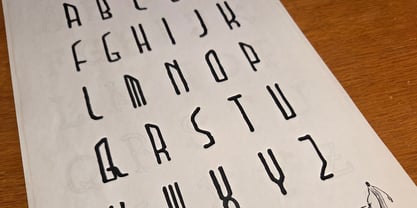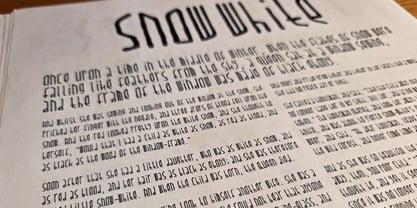
Paradox
von Dawnland
Die Schriftfamilie Paradox wurde von Daniel Viberg entworfen und von Dawnland veröffentlicht. Paradox enthält 1 Stile.
Hand drawn narrow enigmatic grotesque for headlines, preamble and shorter or longer texts. Paradox X contain upper- and lowercase letters (A-Z + swedish characters Å Ä Ö), numbers and many many special characters and glyphs. Common ligatures fi, fl, AE, OE, ae and oe. (open type version of the font and open type compatible layout application required). Paradox goes perfect with the font Paradox Runa (hand drawn elder norse “futhark” runes)!
Creating visual experiences since 1999, Dawnland – Daniel Viberg – works with identity, lettering, fonts, and illustration. Daniel is a graphic designer with a vivid interest in graphic storytelling, which won’t go unnoticed in his productions. This has resulted in a lot of imaginative illustrations, as well as cards and games. His inspiration comes from Swedish folklore and music, from books, films and stories, as well as from all the members of his family. The recent years Daniel has evolved to further embrace the crafting of letters by hand, pens and paper.